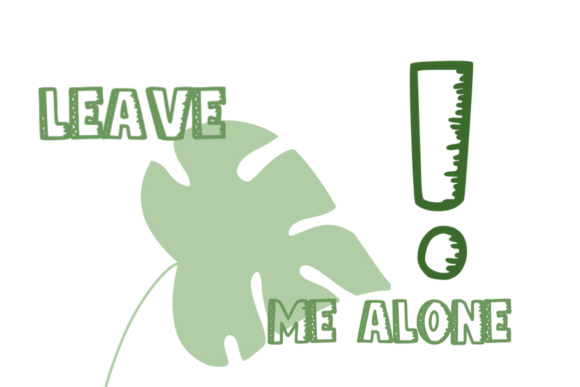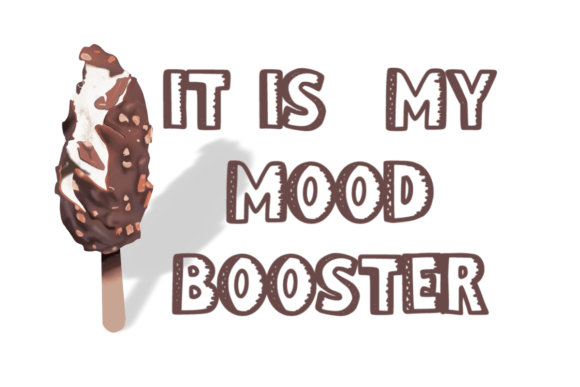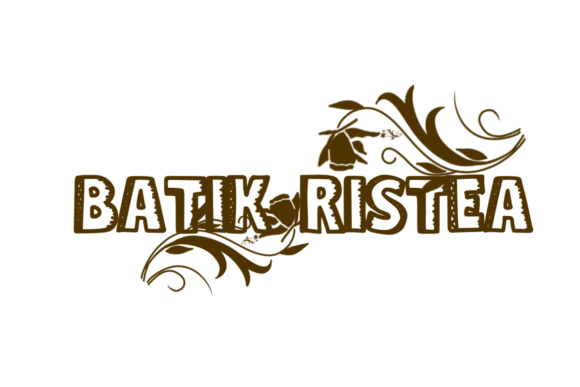
Batik Ristea Font: Add a Touch of Whimsy to Your Designs
Are you tired of using the same old fonts in your designs? Look no further than Batik Ristea, a fun and playful display font that’s sure to brighten up any project. With its whimsical and quirky style, Batik Ristea is the perfect addition to any designer’s toolkit.
What is Batik Ristea Font?
Batik Ristea is a display font that’s designed to make a statement. Its unique and playful style is inspired by traditional batik art, which involves applying wax and dye to fabric to create intricate patterns. The result is a font that’s both fun and sophisticated, with a touch of handmade charm.
Key Features of Batik Ristea Font
- Whimsical and playful style: Batik Ristea is a font that’s not afraid to have fun. Its quirky style is perfect for designs that need a bit of personality.
- Unique and handmade look: The font’s inspiration from traditional batik art gives it a unique and handmade look that’s perfect for crafters and designers who want to add a touch of authenticity to their work.
- Display font: Batik Ristea is designed to be used as a display font, making it perfect for headlines, titles, and other applications where you want to make a statement.
- Easy to read: Despite its playful style, Batik Ristea is still easy to read, making it a great choice for designs where you need to communicate a message.
How to Use Batik Ristea Font in Your Designs
Batik Ristea is a versatile font that can be used in a wide range of designs, from craft projects to digital designs. Here are a few ideas for how to use Batik Ristea in your work:
- Craft projects: Batik Ristea is a great choice for craft projects like quilting, sewing, and paper crafting. Its handmade look and feel make it perfect for adding a personal touch to your work.
- Digital designs: Batik Ristea can also be used in digital designs like social media graphics, blog posts, and website headers. Its playful style is sure to grab attention and add a bit of personality to your designs.
- Sign making: Batik Ristea is a great choice for sign making, whether you’re creating a sign for a business or a personal project. Its bold and playful style is sure to stand out.
Tips for Getting the Most Out of Batik Ristea Font
Here are a few tips for getting the most out of Batik Ristea:
- Use it sparingly: Batik Ristea is a bold and playful font, so it’s best to use it sparingly. Use it for headlines and titles, and pair it with a simpler font for body text.
- Experiment with colors: Batik Ristea looks great in a wide range of colors, so don’t be afraid to experiment. Try pairing it with bright and bold colors for a fun and playful look.
- Pair it with other fonts: Batik Ristea can be paired with a wide range of other fonts to create a unique and interesting look. Try pairing it with a serif font for a classic look or a sans-serif font for a modern look.
Batik Ristea is a fun and playful display font that’s sure to add a touch of whimsy to your designs. With its unique and handmade look, it’s perfect for crafters and designers who want to add a bit of personality to their work. Whether you’re working on a craft project or a digital design, Batik Ristea is a great choice. So why not give it a try and see the difference it can make in your designs?